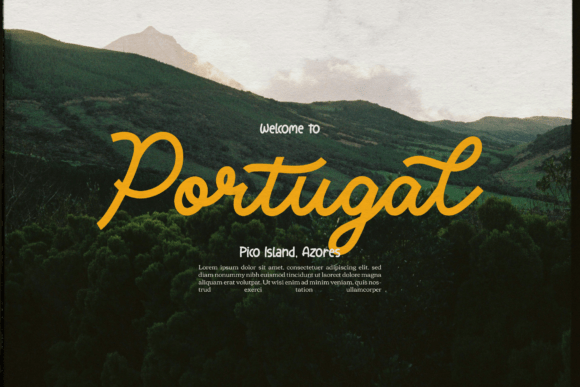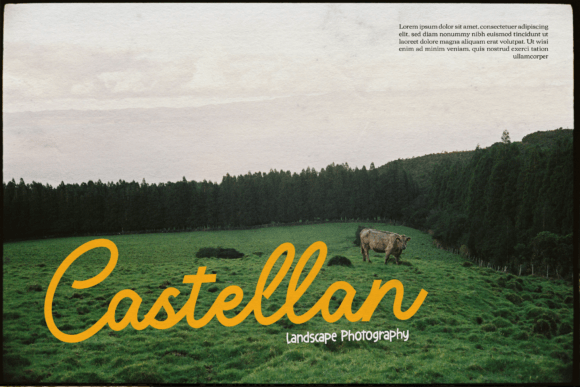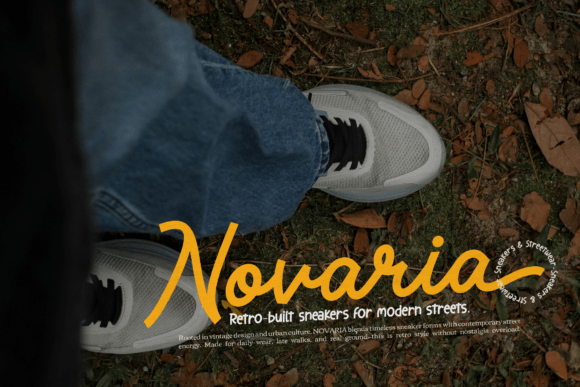
Introduction to Averty Meadow Font
Averty Meadow is a breath of fresh air in typographic formβ€”a graceful monoline script that evokes the natural beauty of a blooming field.
This Averty Meadow typeface features over 290 glyphs and multilingual support, providing incredible flexibility for global branding and sophisticated stationery The Averty Meadow font is ideal for garden-themed wedding invitations, organic skincare packaging, and artisanal product labels.
Key Features of Averty Meadow Font